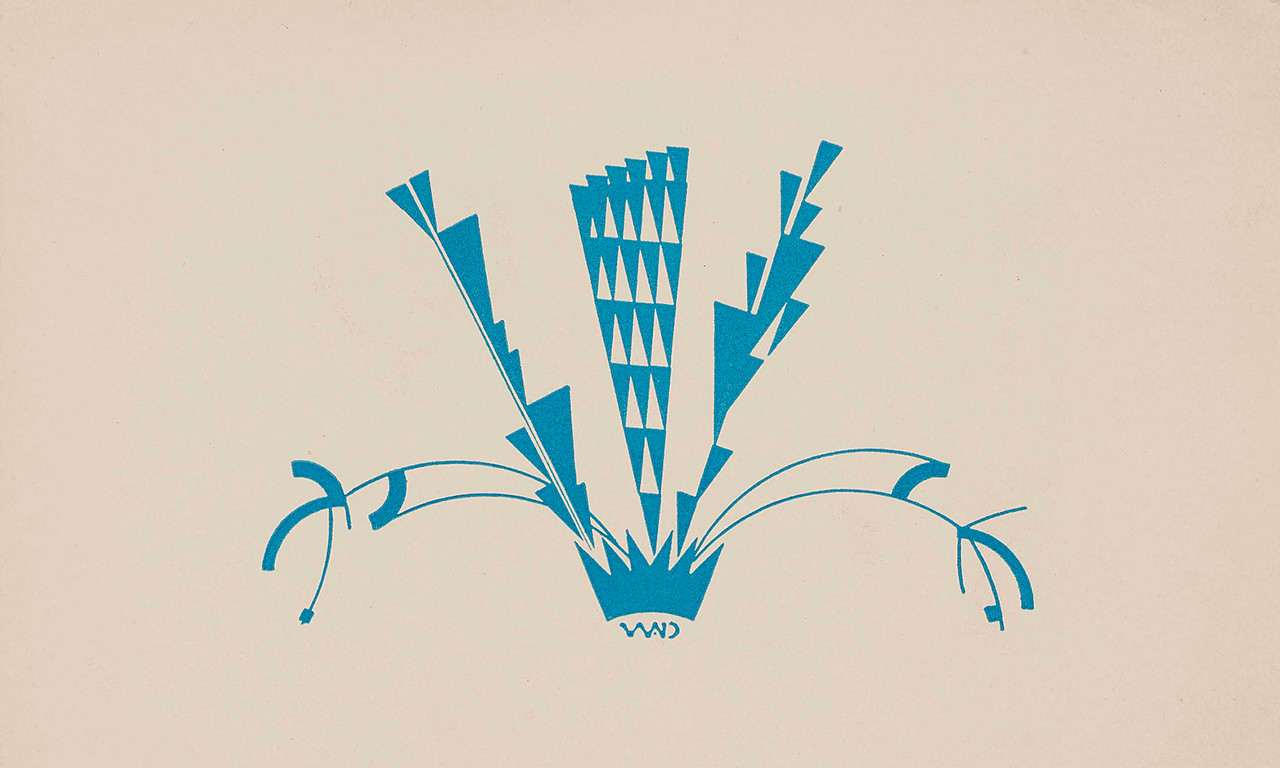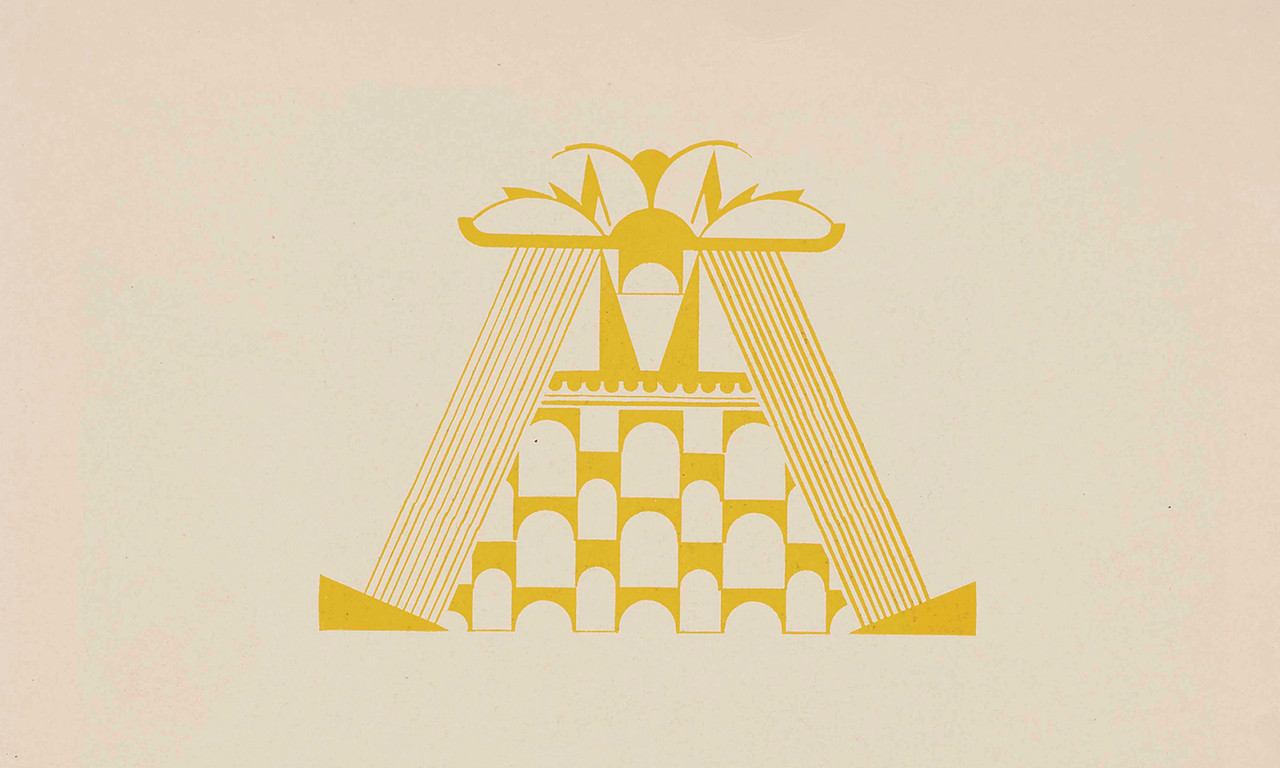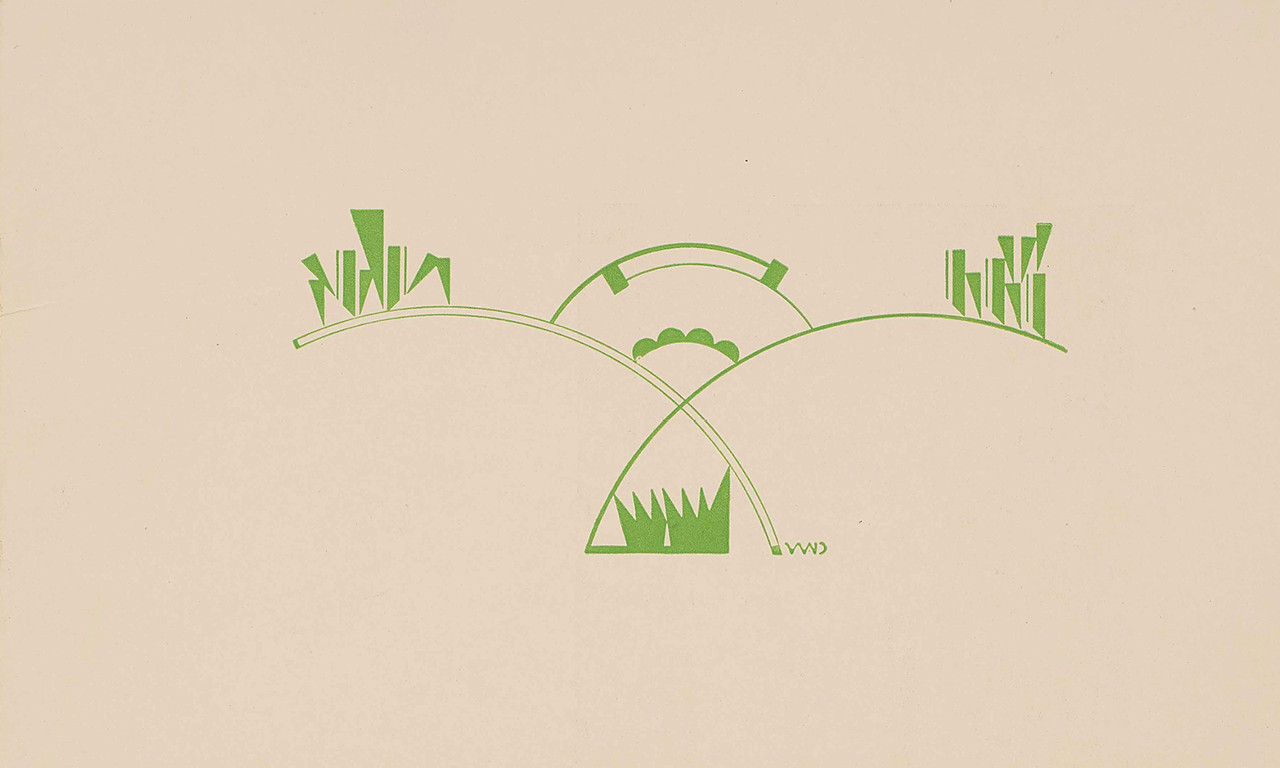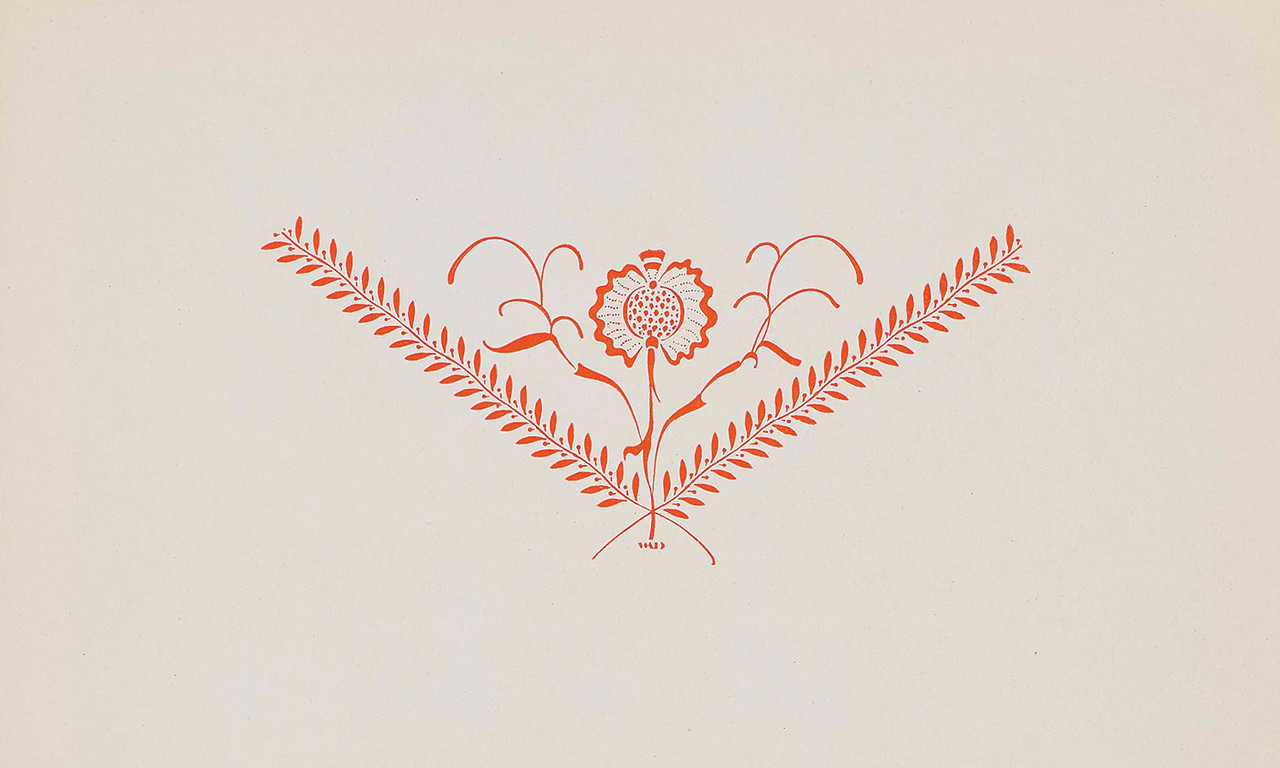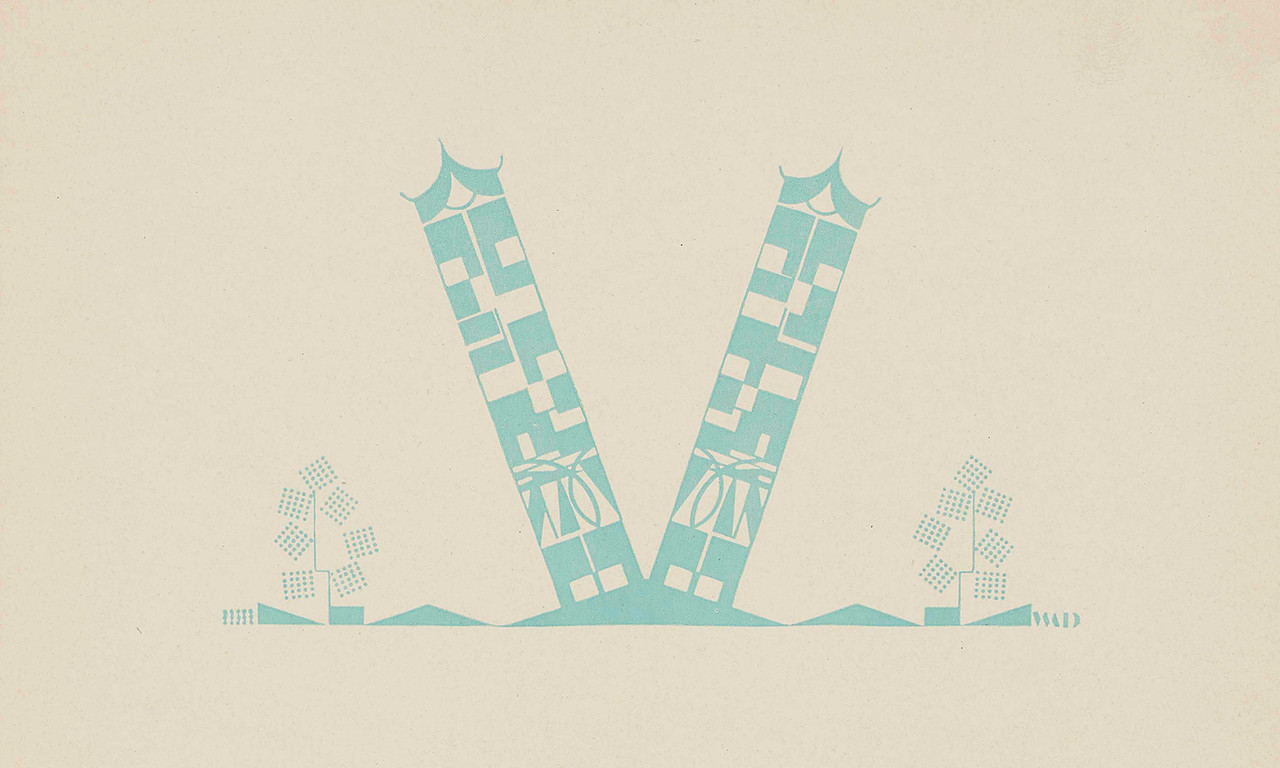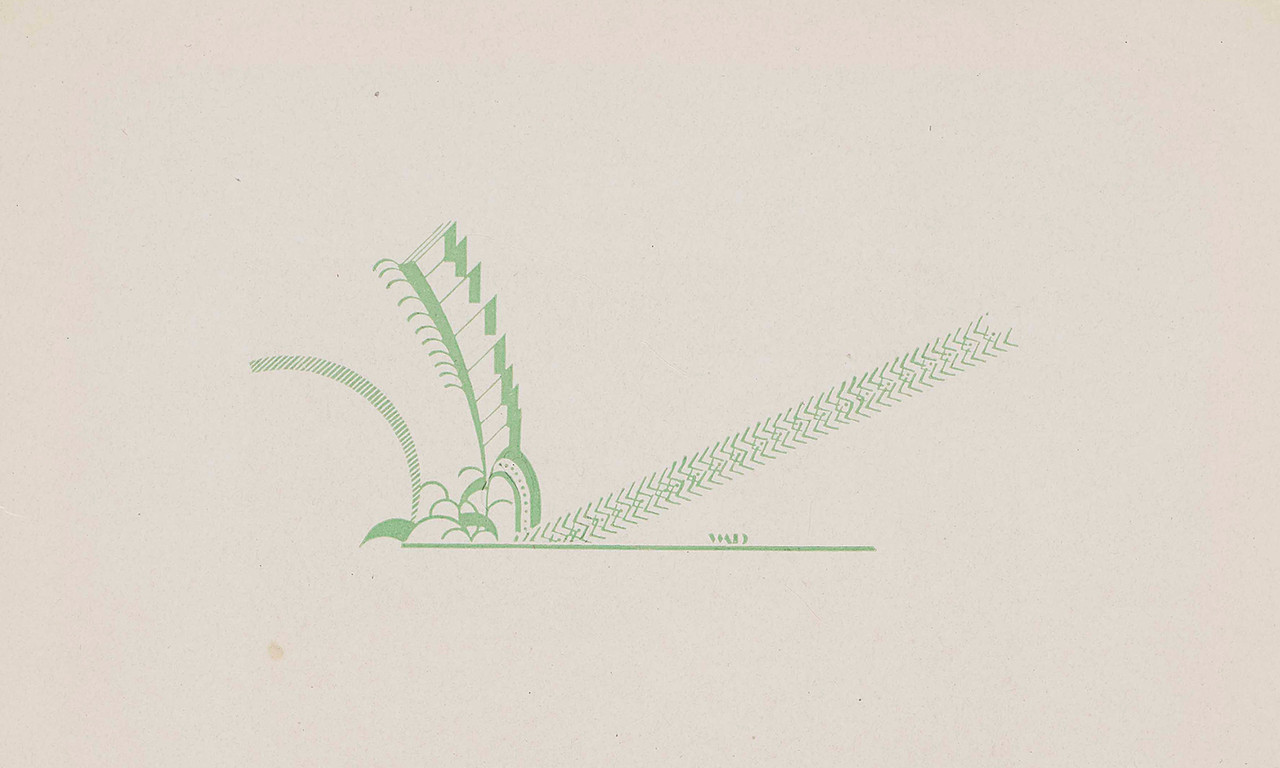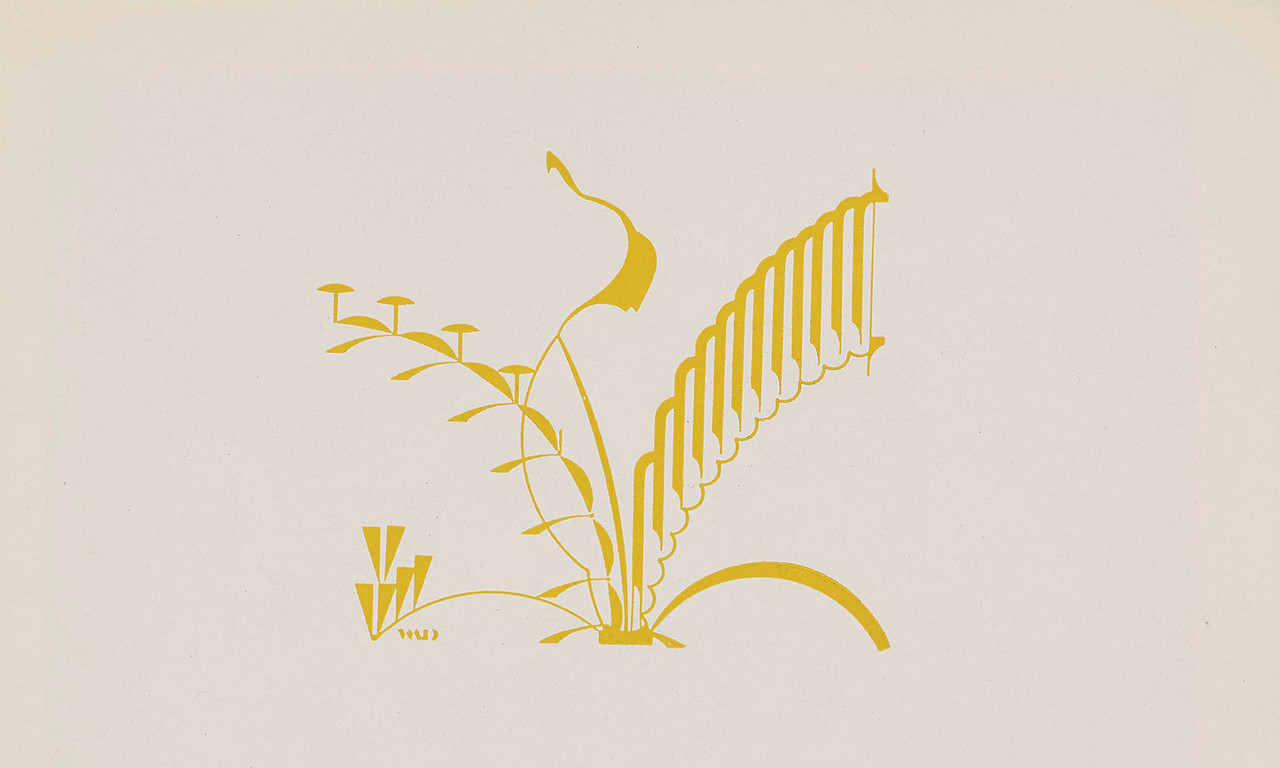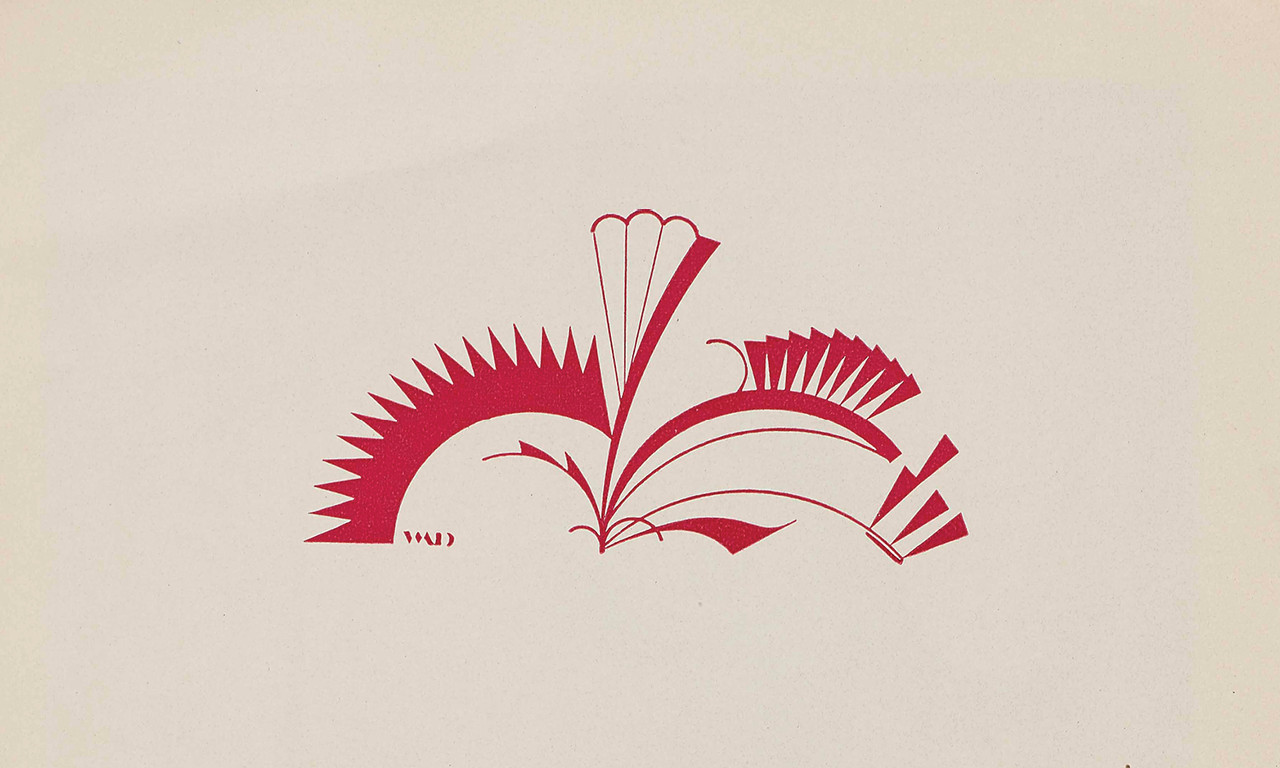
A selection of lively stenciled embellishments by W. A. Dwiggins, reproduced in a suite of 20 notecards with accompanying envelopes
In the 1920s, graphic designer William Addison Dwiggins developed a delicate visual language composed of tiny geometric elements. He cut these modular shapes into celluloid stencils and used them to create abstract typographic ornaments, elegant architectural motifs, intricate page borders, and delightful allover patterns in his book designs. Dwiggins referred to these organic vignettes, which he first experimented with in woodblock printing, as “sprigs, leaves, and flowers.” Initially printed in a commercial booklet of paper samples, Dwiggins’s cheerful decorations find a new home in this stationery set, printed on special paper and presented in a keepsake box.
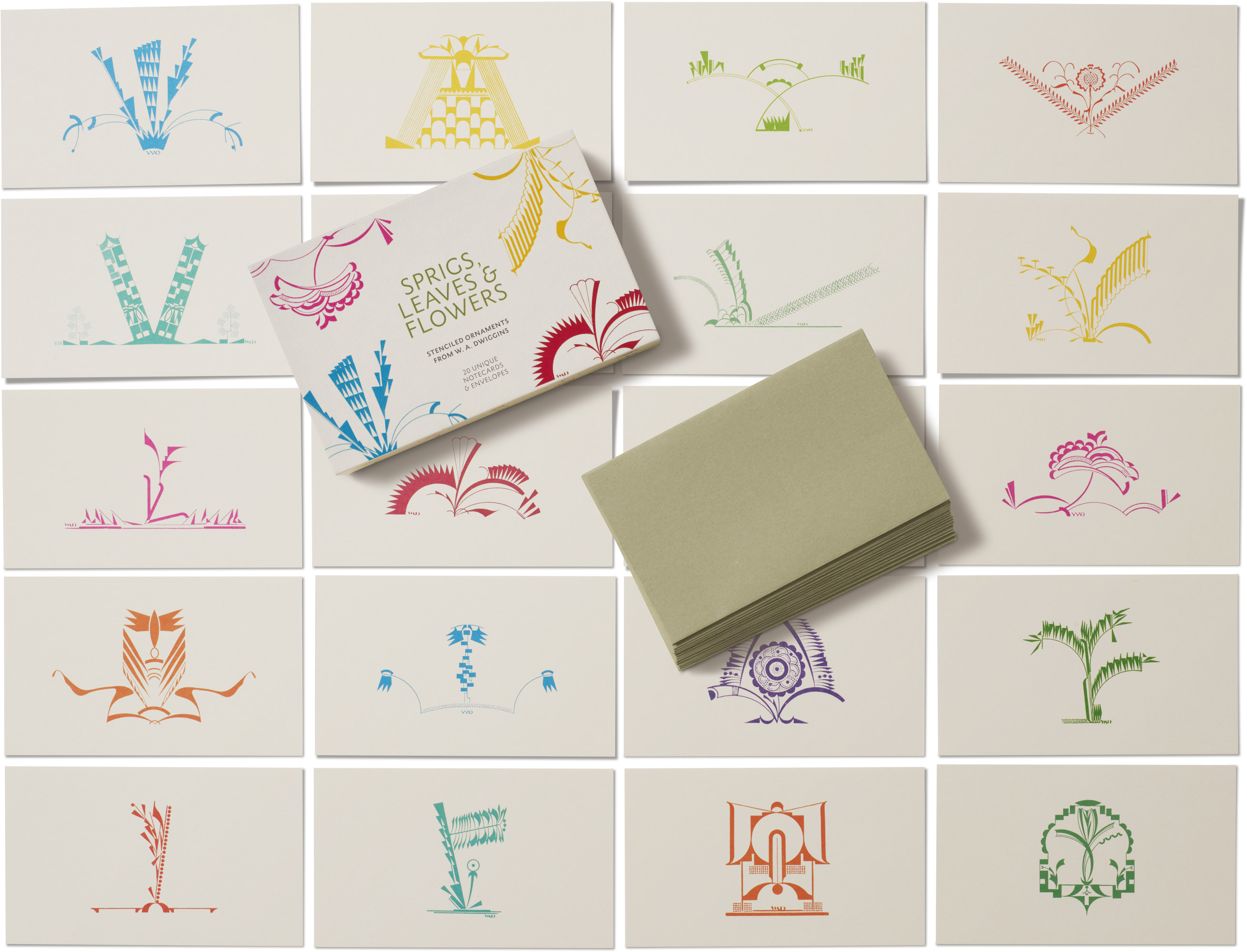
William Addison Dwiggins (1880–1956) was among the most influential and innovative artists of his generation. He experimented with a wide variety of passions, including as a master calligrapher, type designer, illustrator, marionette artist, and private press printer. A pioneer of advertising, magazine, and book design, he was also a quintessential maker— fabricating his own tools, mastering traditional skills, and inventing new techniques. His most notable projects include his many book designs for publisher Alfred A. Knopf and his typefaces Metro (1929), Electra (1935), and Caledonia (1938).